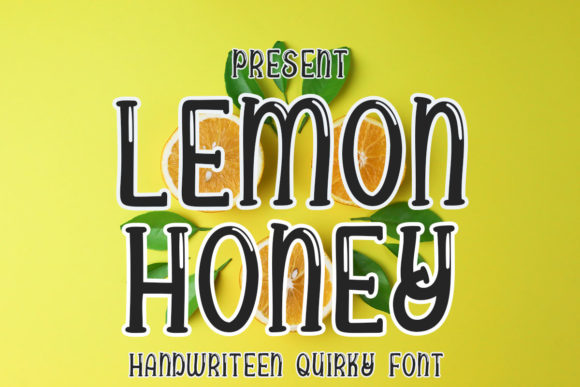
Introducing Lemon Honey Font: The Delightful Display Font for Christmas Cheer!
Get ready to spread festive joy with Lemon Honey Font, an irresistibly charming and playful display font that will instantly add a touch of Christmas magic to your designs. Whether you're designing Christmas cards, whimsical posters, or enchanting digital invitations, Lemon Honey will make your creations sing with its cheerful spirit.
This delightful font is meticulously crafted to capture the essence of the holiday season, with its unique and eye-catching letterforms that dance across the page with a festive flair. From adorable Christmas trees to jolly snowmen, each character is infused with the warmth and wonder of the holidays, promising to bring smiles to the faces of all who behold it.
Lemon Honey is not just another font; it's a portal to a world of Christmas cheer, a way to express your festive spirit through your creations. Let your imagination soar as you use this versatile font to design everything from festive packaging and gift tags to enchanting social media graphics and website banners. Its boundless versatility makes it the perfect choice for any Christmas-themed project, ensuring that your designs will stand out with their unique and charming style.
So why wait? Embark on a festive adventure with Lemon Honey Font today and let the magic of Christmas flow through your designs. Embrace the joy, spread the cheer, and create something truly extraordinary this holiday season.